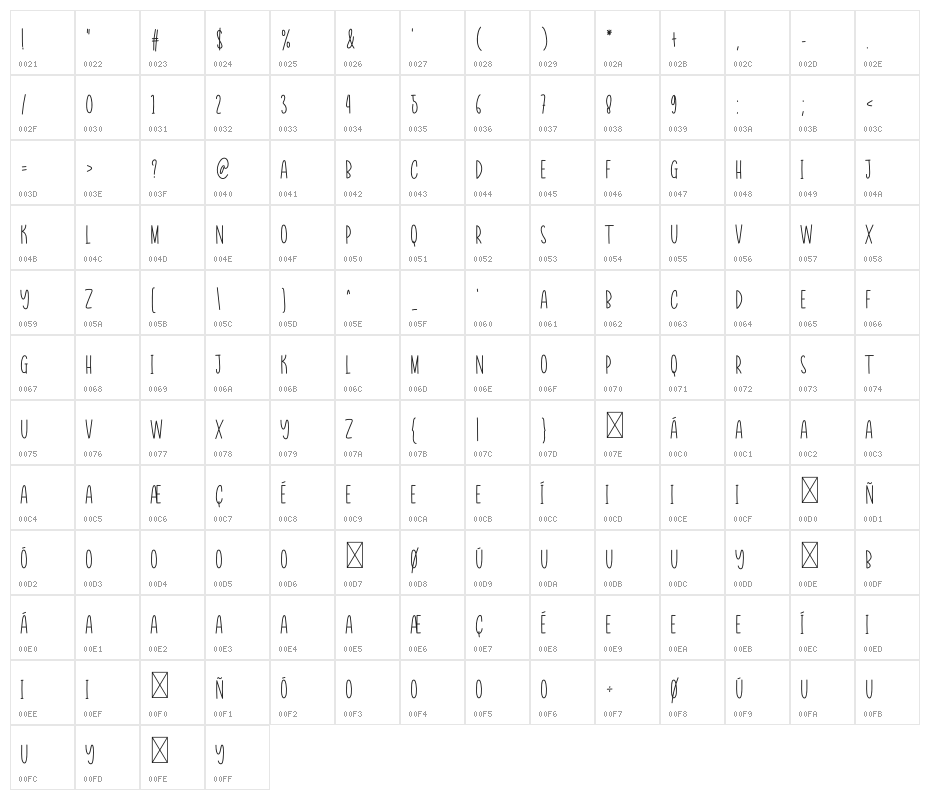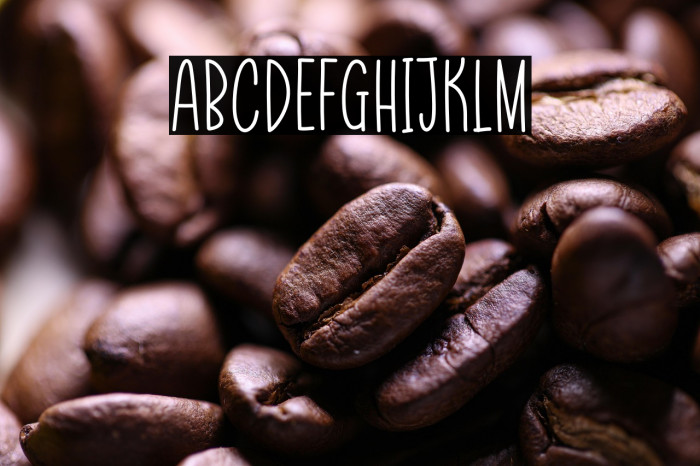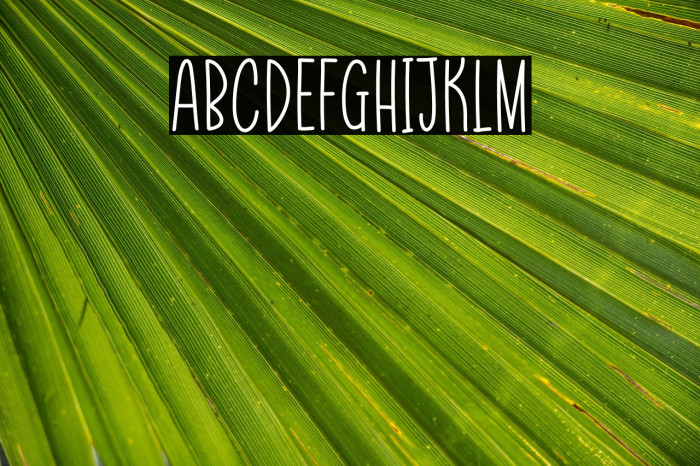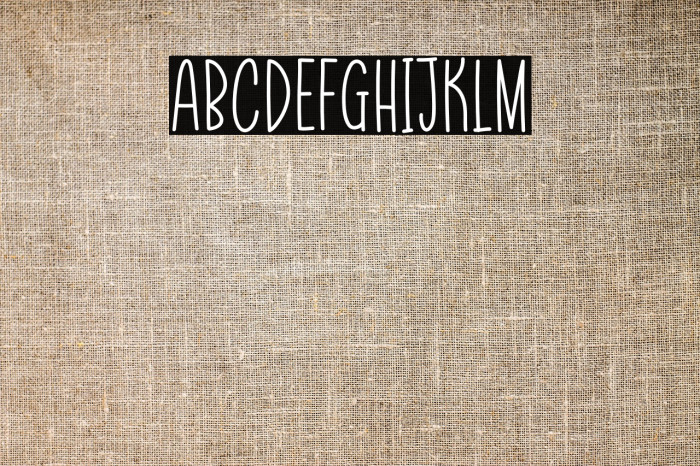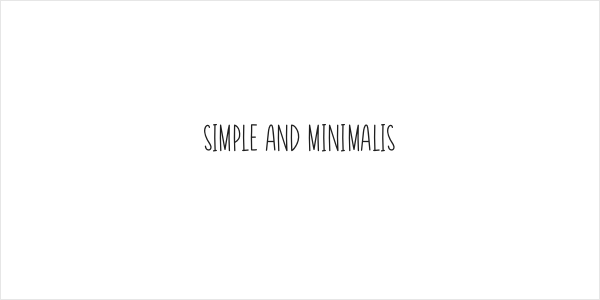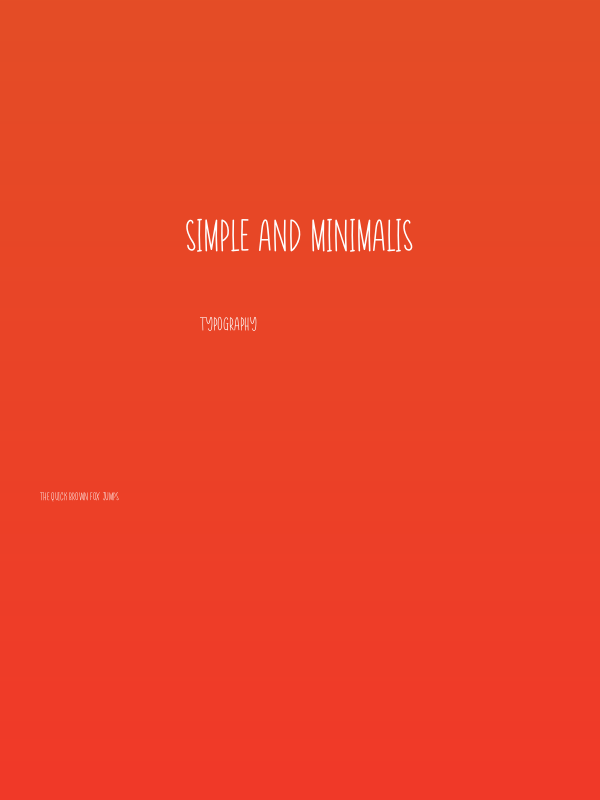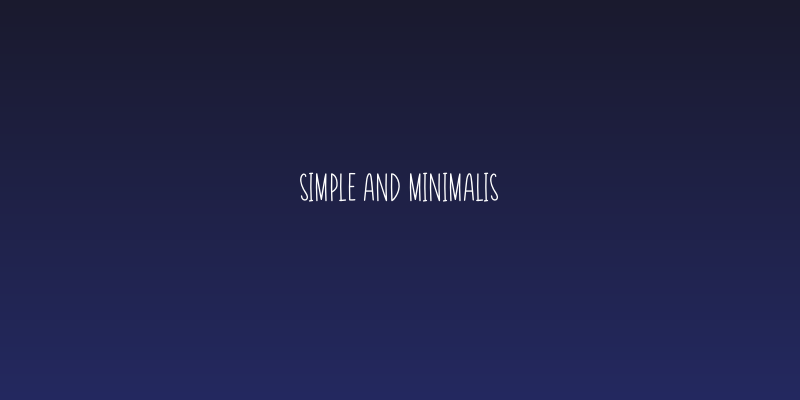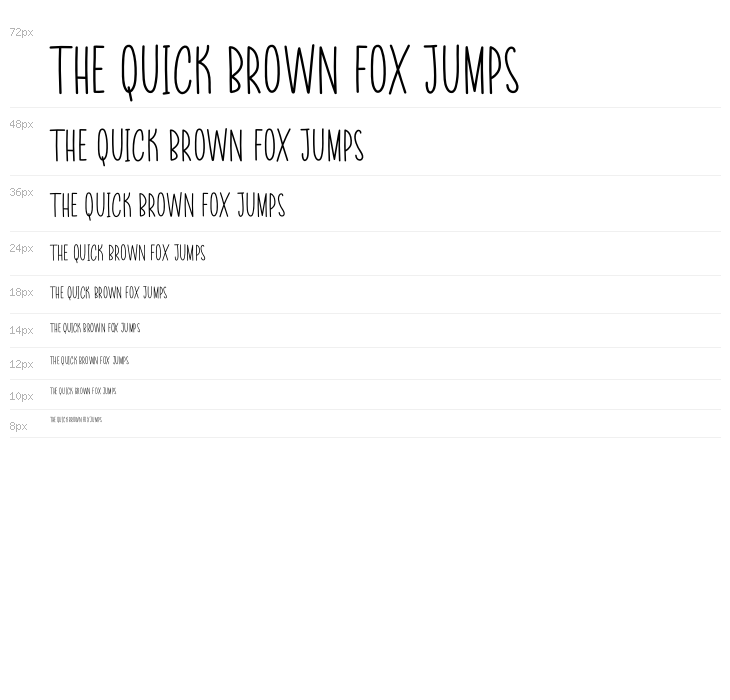
Simple And Minimalis Font
Simple And Minimalis Description
A playful, handwritten font with a casual and friendly appearance. The characters are slightly irregular, adding a personal touch.